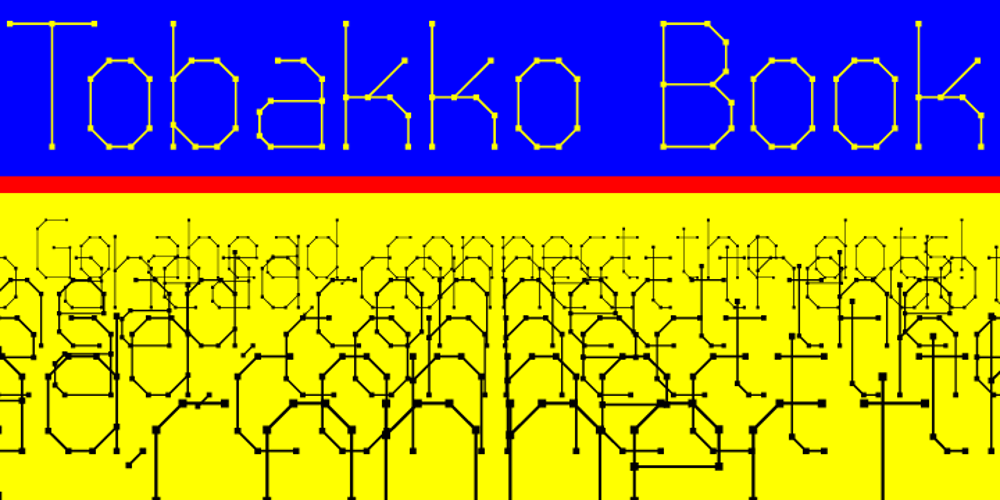
Tobacco Font Family was designed by Tomi Haaparanta and published by Suomi. Tobacco contains 1 styles and family package options. Tobacco came about from the drawing programs and the way they display a line with control points.